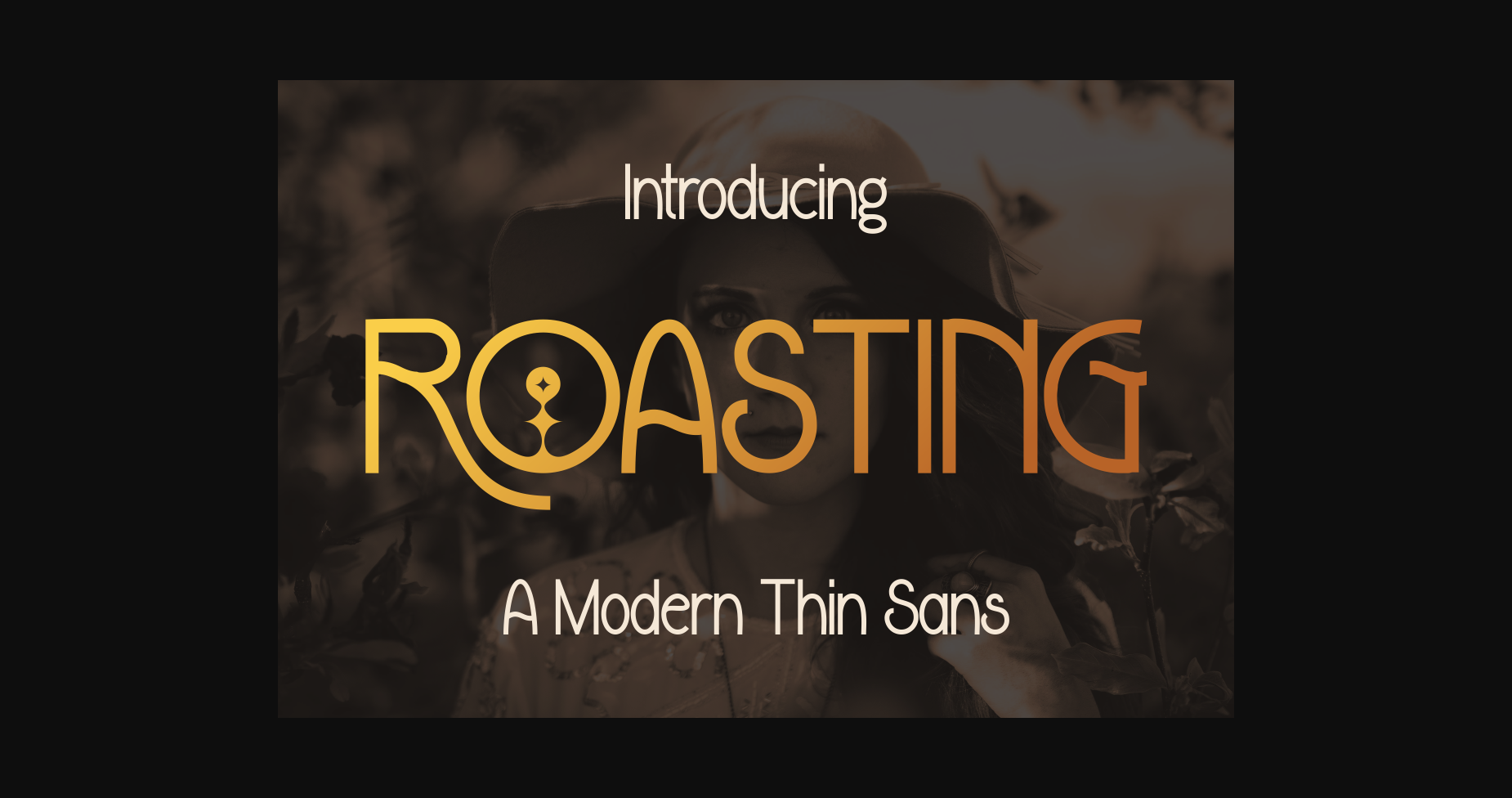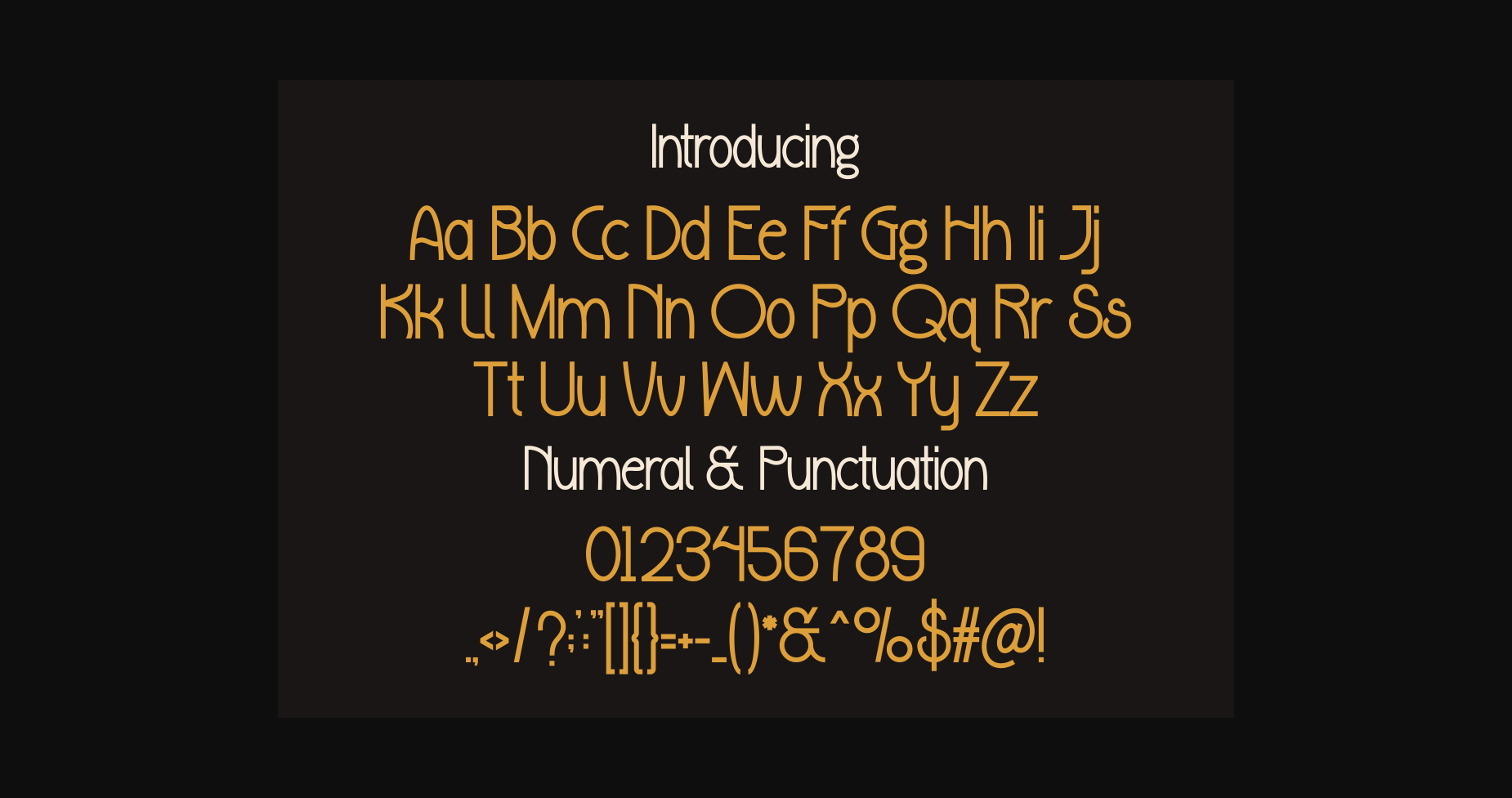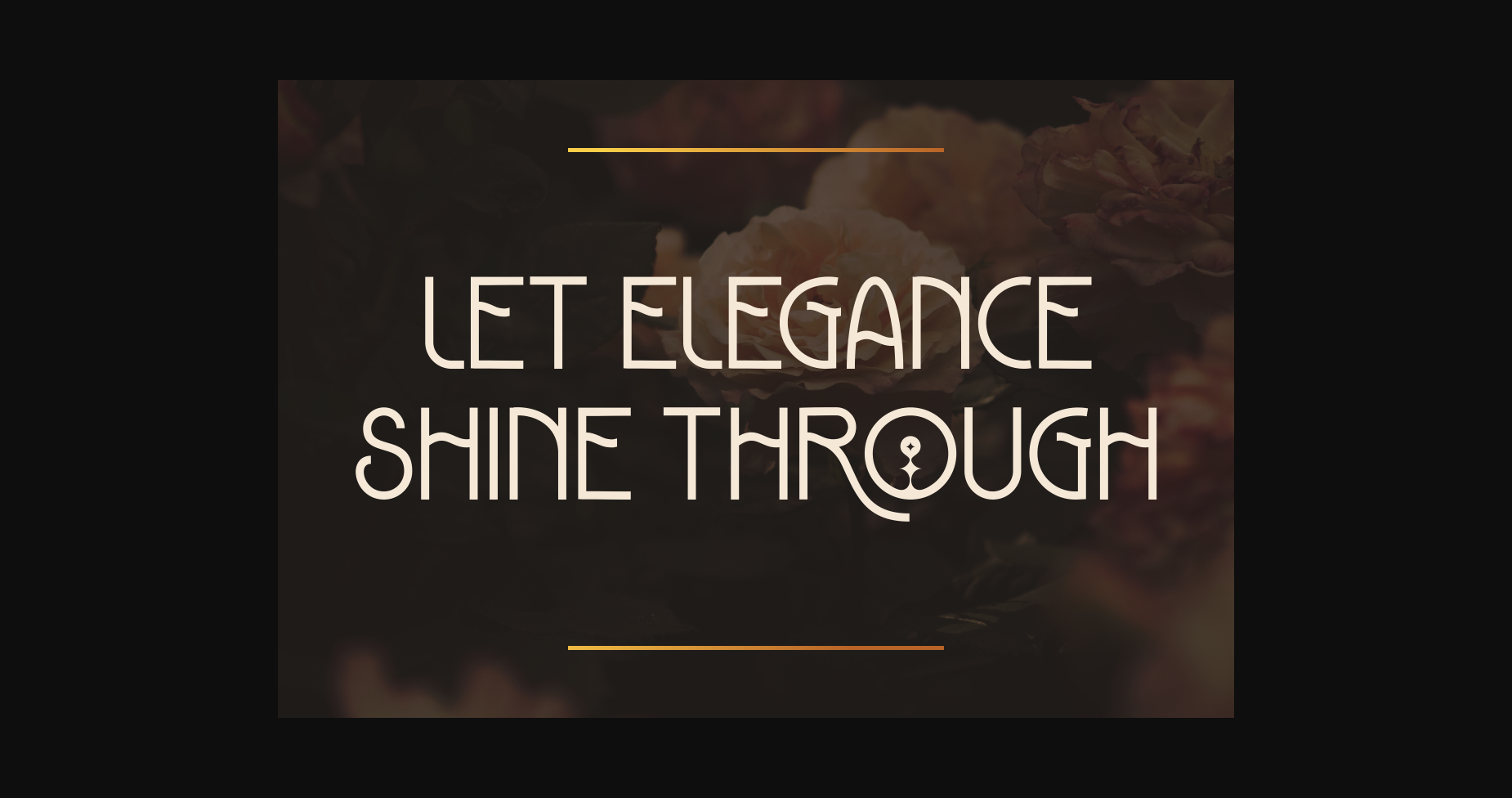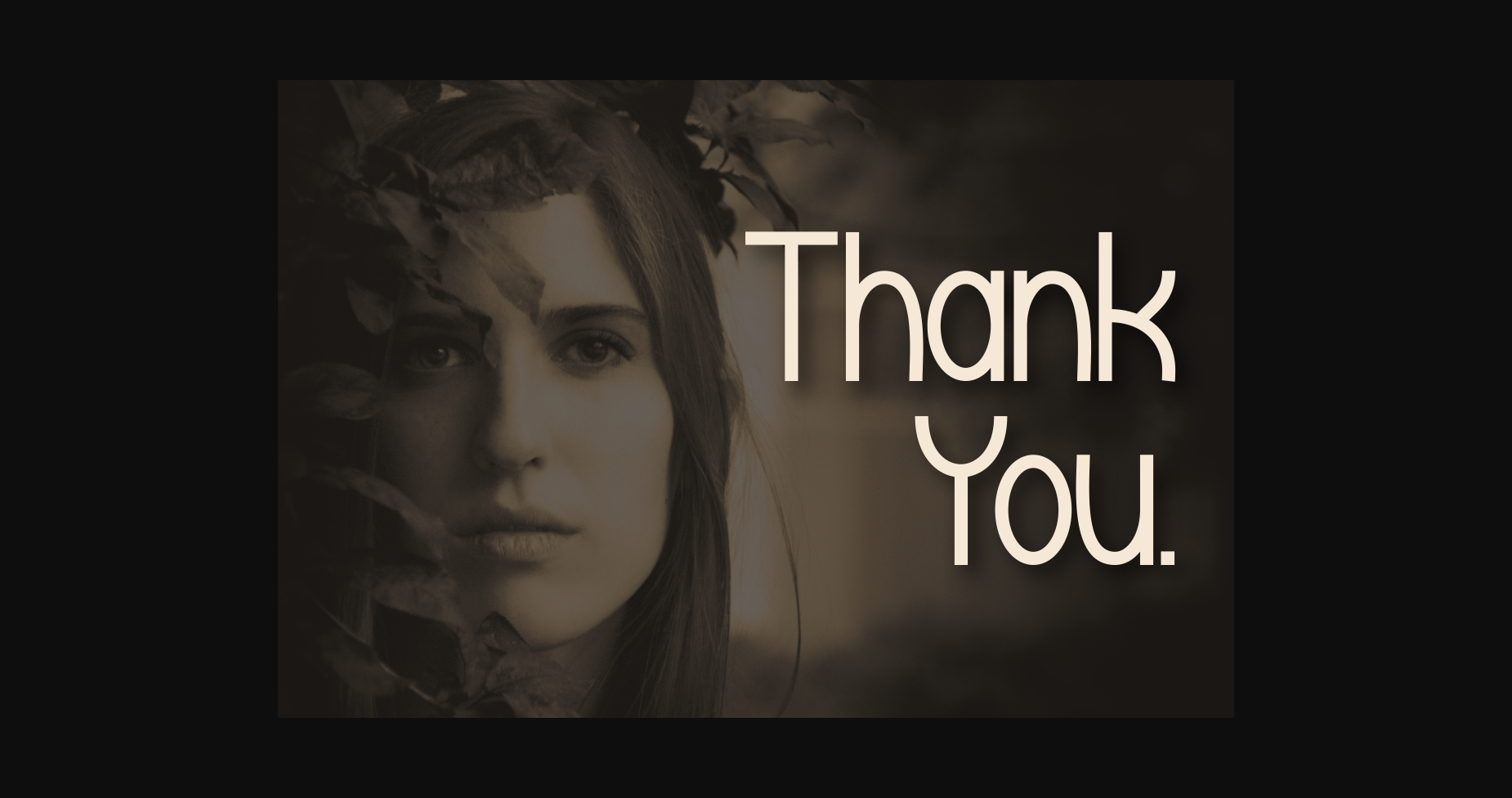
Roasting Font
About Roasting Font
Introducing our new product **ROASTING Font** – Modern Font
ROASTING Font** – Modern Font is a bold and authentic display font. The font is suitable for any branding project like logo, t-shirt printing, Product and many more. Outstanding in a wide range of contexts